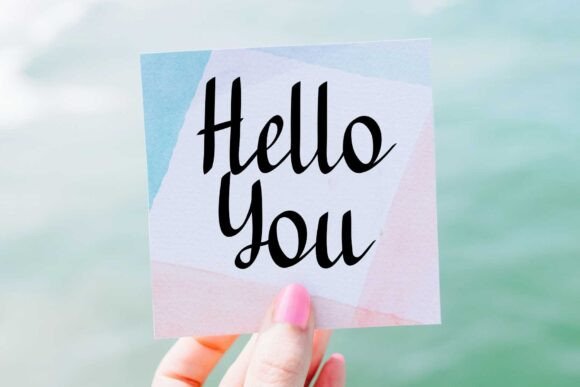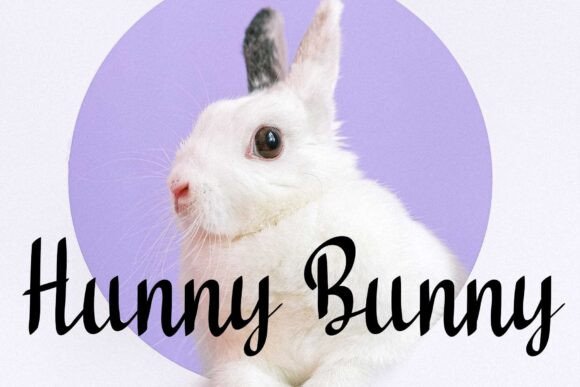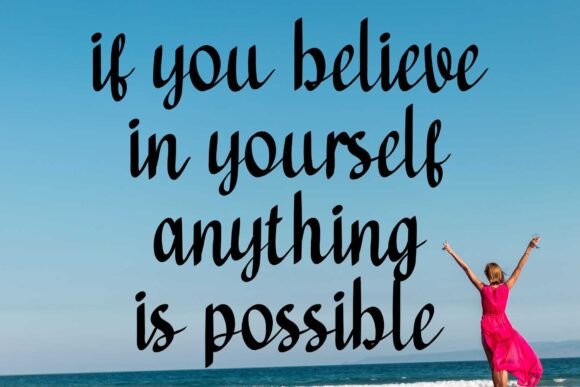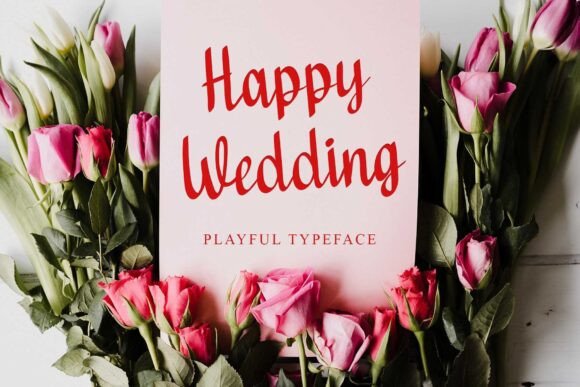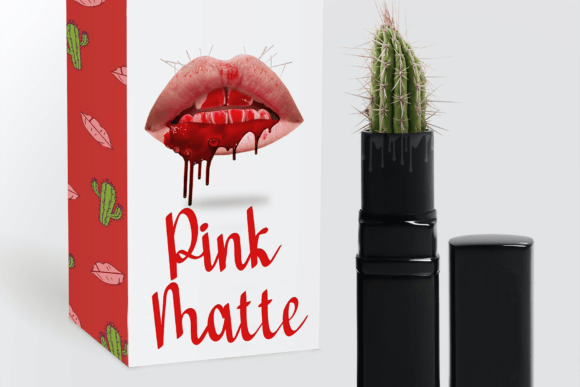
Introduction to Buttercake Font Font
Fonts play a crucial role in design, and the Buttercake Font font is a typeface that brings both character and versatility to any project. Whether you’re working on a branding project, a website, or a print design, the Buttercake Font font offers a unique style that can elevate your work.
Buttercake is a unique and elegant font specially designed just for you.
This font is made with a professional hand touch and is perfect for your projects This font is very suitable for use in your work projects, all greeting cards from wedding invitation cards, birthdays, all types of parties.
Key Features of Buttercake Font Font
Why Choose Buttercake Font Font?
The Buttercake Font font is more than just a typeface – it’s a design tool that helps you communicate your message with style and clarity. Its unique character set and versatile design make it suitable for a wide range of applications, from elegant invitations to bold headlines.
With its carefully crafted letterforms and balanced proportions, the Buttercake Font font ensures readability and visual appeal across all mediums.
What makes Buttercake Font font special?
The Buttercake Font font stands out with its unique design, exceptional readability, and versatility across various design applications.